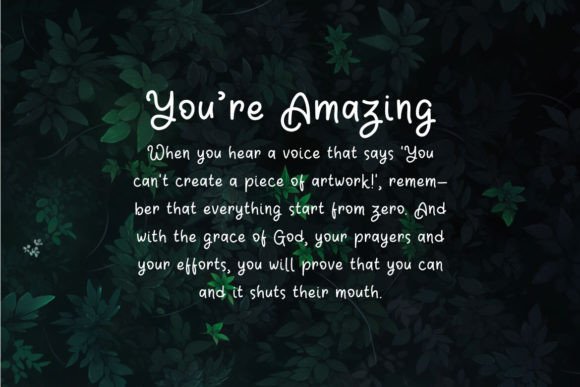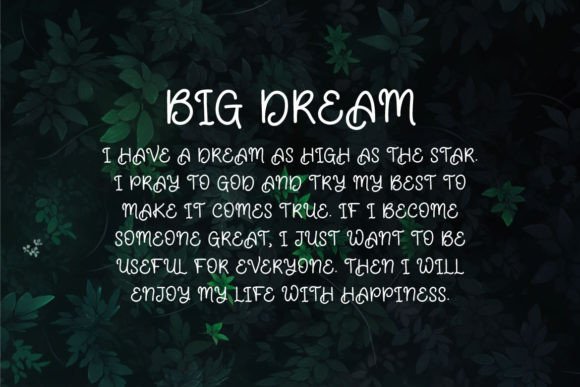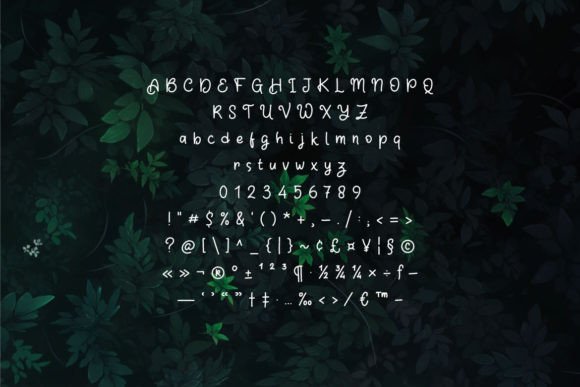
Aries Hoper Font: Elevate Your Designs with a Personal Touch
In the world of typography, handwritten script fonts have always been a favorite among designers and crafters. They add a personal touch to any design, making it stand out from the crowd. One such font that has gained popularity in recent times is the Aries Hoper Font. In this article, we’ll dive into the features, uses, and benefits of this beautiful font.
What is Aries Hoper Font?
Aries Hoper is a handwritten script font that exudes elegance and sophistication. Its unique, flowing strokes and carefully crafted letters make it perfect for a wide range of design projects. Whether you’re a designer, crafter, or simply a DIY enthusiast, Aries Hoper Font is an excellent choice for adding a personal touch to your work.
Features of Aries Hoper Font
Aries Hoper Font comes with several features that make it a versatile and practical choice for designers and crafters. Some of its notable features include:
- Handwritten script style: Aries Hoper Font has a beautiful, handwritten script style that adds a personal touch to any design.
- Unique letterforms: Each letter in the font is carefully crafted to create a unique and elegant look.
- Flowing strokes: The font features flowing strokes that connect letters, creating a sense of movement and fluidity.
- Multilingual support: Aries Hoper Font supports multiple languages, making it a great choice for designers working on international projects.
Uses of Aries Hoper Font
Aries Hoper Font is an incredibly versatile font that can be used in a wide range of design projects. Here are some ideas to get you started:
- Comic books and graphic novels: Add a personal touch to your comic book or graphic novel with Aries Hoper Font.
- Posters and flyers: Create eye-catching posters and flyers with Aries Hoper Font.
- School projects: Use Aries Hoper Font for school projects, such as presentations, reports, and posters.
- Book titles and covers: Add a touch of elegance to your book titles and covers with Aries Hoper Font.
- Advertisements: Use Aries Hoper Font in advertisements to create a unique and memorable brand identity.
- Social media content: Elevate your social media content with Aries Hoper Font.
- Logos and branding: Create a unique and memorable logo with Aries Hoper Font.
Benefits of Using Aries Hoper Font
Using Aries Hoper Font in your design projects comes with several benefits, including:
- Unique and personalized look: Aries Hoper Font adds a personal touch to your designs, making them stand out from the crowd.
- Elegant and sophisticated: The font’s elegant and sophisticated style makes it perfect for high-end designs.
- Easy to read: Aries Hoper Font is easy to read, making it perfect for body text and headlines.
- Versatile: The font’s versatility makes it suitable for a wide range of design projects.
Tips for Using Aries Hoper Font
Here are some tips for using Aries Hoper Font in your design projects:
- Use it sparingly: Use Aries Hoper Font sparingly to create a focal point in your design.
- Pair it with other fonts: Pair Aries Hoper Font with other fonts to create a unique and interesting contrast.
In conclusion, Aries Hoper Font is a beautiful and versatile handwritten script font that can elevate your designs to the next level. Its unique letterforms, flowing strokes, and elegant style make it perfect for a wide range of design projects. Whether you’re a designer, crafter, or simply a DIY enthusiast, Aries Hoper Font is an excellent choice for adding a personal touch to your work.